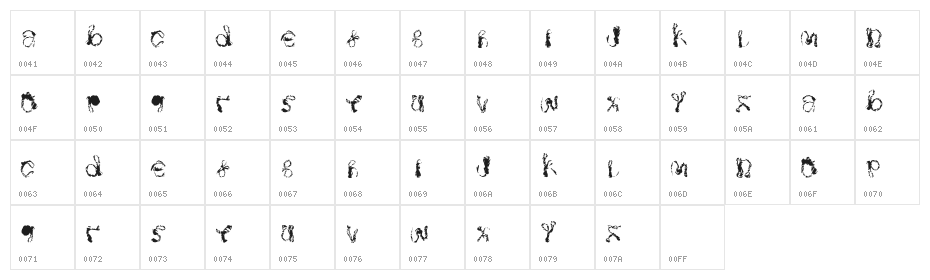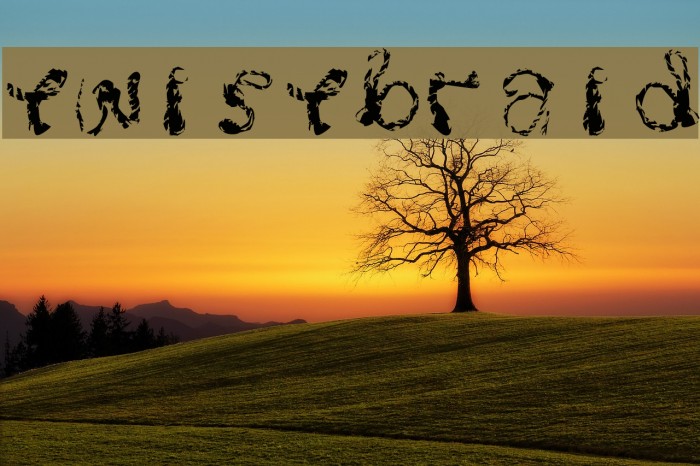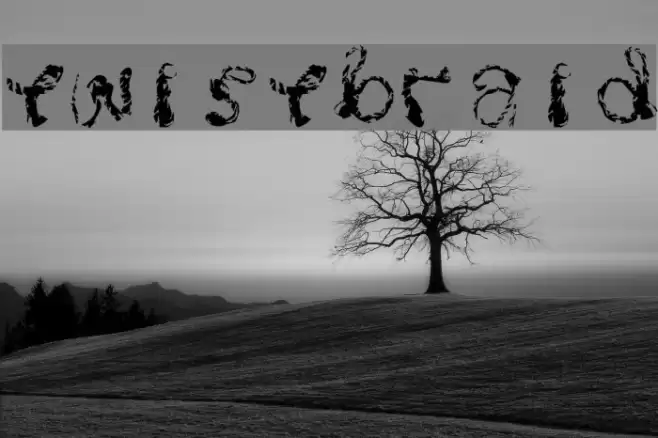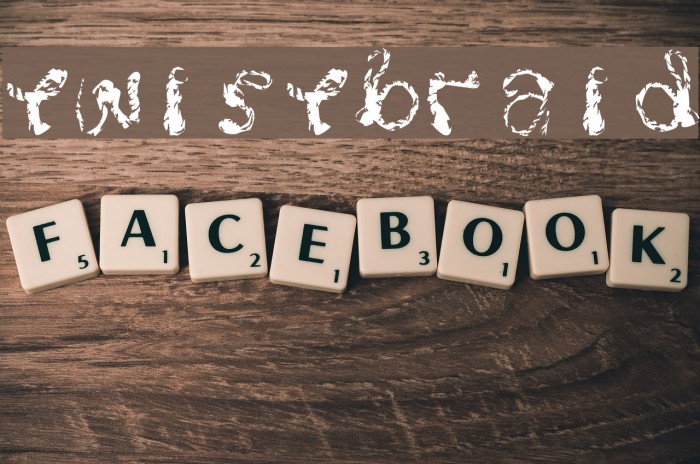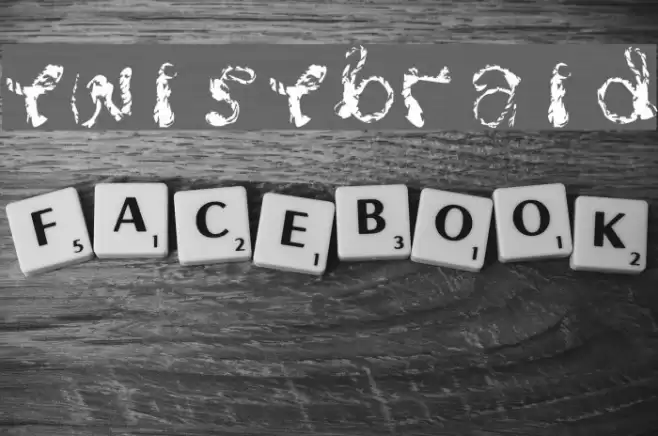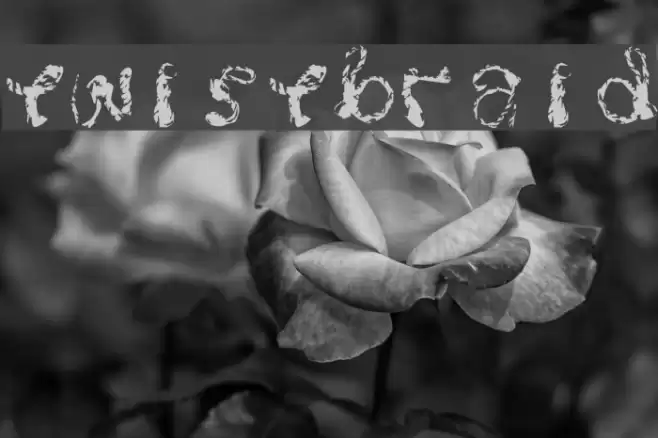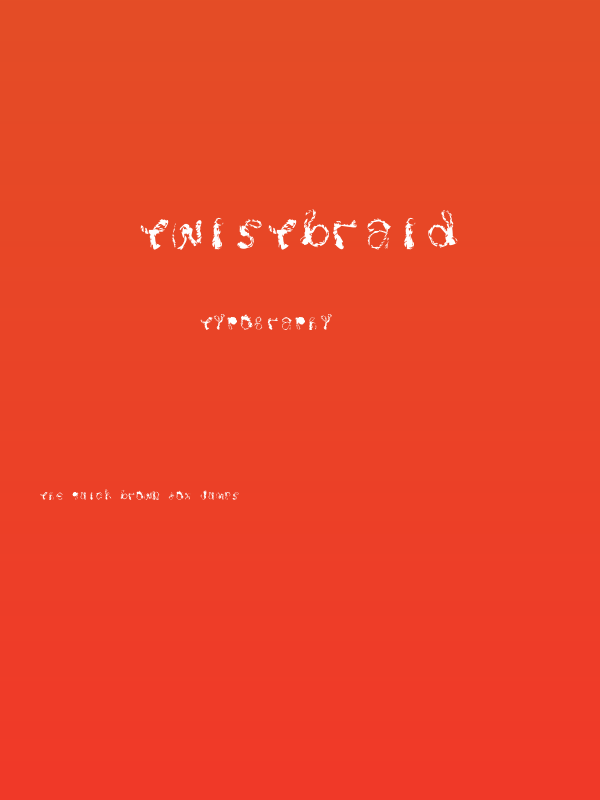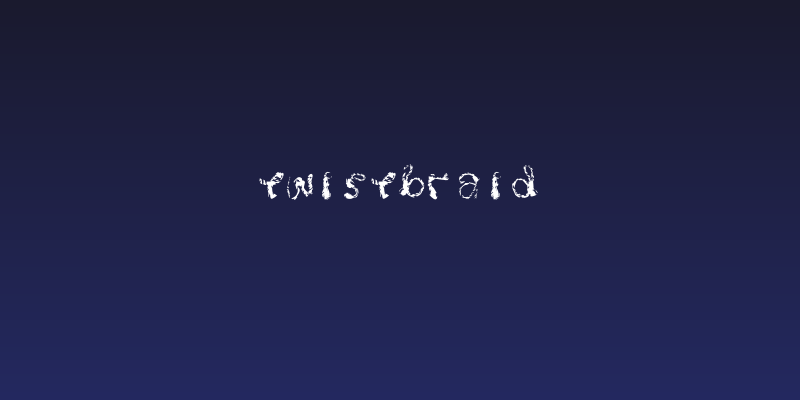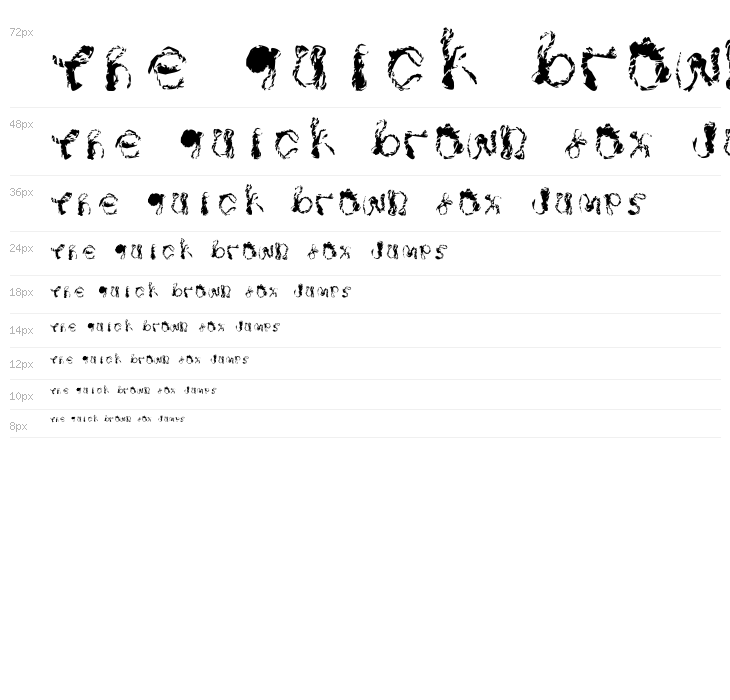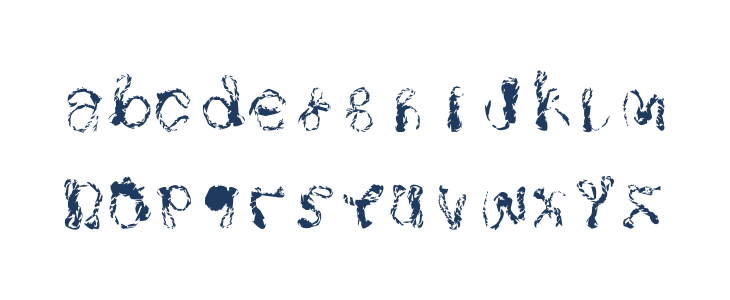
Twistbraid Font
Twistbraid Description
This font features a unique and artistic design that resembles twisted braids or intricate knots. Each character is crafted with a sense of movement and fluidity, creating an organic and dynamic appearance. The strokes are uneven and textured, giving the font a handcrafted feel. The overall look is bold and expressive, making it stand out in any design. Its decorative nature makes it suitable for projects that require a touch of creativity and flair. The font's intricate details and high contrast between the thick and thin strokes add to its visual interest.
| Proposed Projects | Ideal for artistic posters, creative branding, album covers, and unique invitations. |